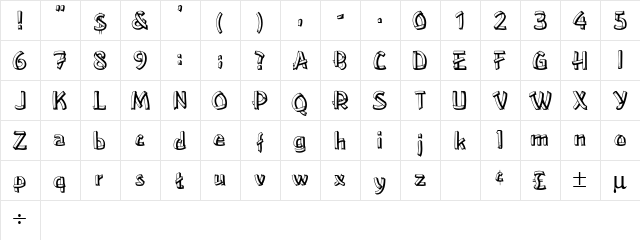
LowEa Regular
Design Context for LowEa Typeface
LowEa is a composed and adaptable typeface that performs quietly and consistently across a wide range of design contexts.